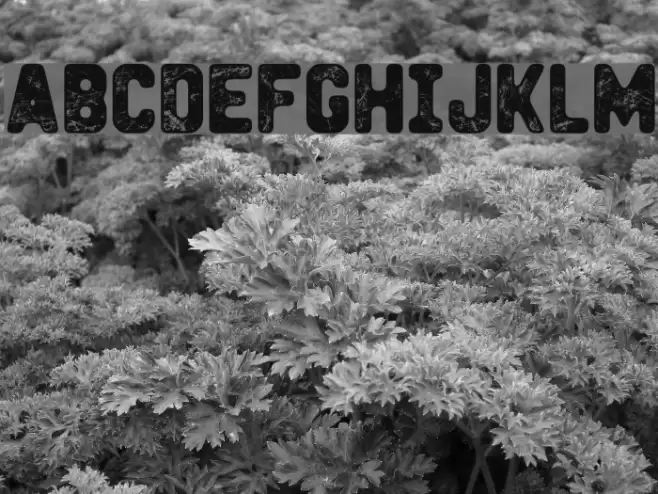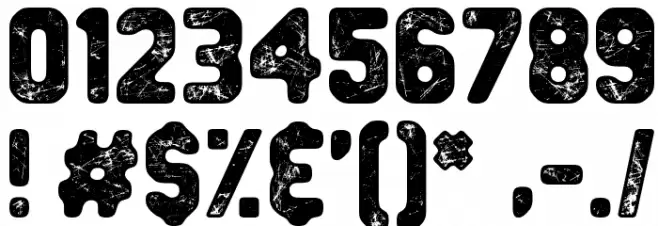
Heavy Metal Box Font
Heavy Metal Box Description
This font features a bold, distressed style with a heavy, industrial feel. The characters are blocky and robust, with a textured, worn appearance that suggests a rugged, metallic surface. The uppercase letters are uniform in height, while the numbers and special characters maintain the same gritty aesthetic. The font's design is reminiscent of heavy machinery or metal band logos, making it ideal for projects that require a strong, impactful visual statement. Its unique texture adds depth and character, making it stand out in any design.
A bold, distressed font with a rugged, industrial style from Uncategorized fonts.
- Proposed Projects: Ideal for music album covers, event posters, branding for industrial products, or any project needing a strong, edgy look.